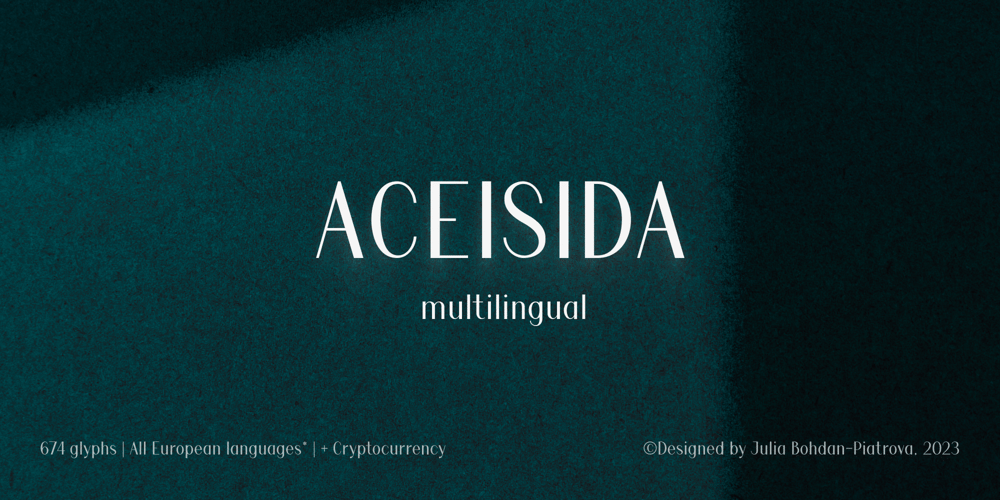
Aceisida
Aceisida font
Aceisida Font Family was designed by Yuliya Bohdan-Piatrova and published by JB Design. Aceisida contains 4 styles and family package options. ACEISIDA is a font that supports over 100 languages from around the world. Basic and some Extended Cyrillic, Basic, Additional and Extended Latin, Basic Greek, and some newly added characters recently entered into use in everyday life. ACEISIDA is a font that elegantly combines the timelessness of antique design with the modernity of the grotesque. The absence of serifs results in a universally readable and sophisticated format. It was designed to focus on the main text, complementing other design fonts without disrupting them. This font is perfect for those who appreciate minimalism and refinement, and its smooth lines make it suitable for various design projects. It adds understated elegance to any design, making it the ideal choice for those who value simplicity, modernity, and sophistication. The font includes many glyphs for the Kazakh language, catering to the ongoing transition to the Latin script and accommodating various spellings.It also features a basic set of characters and glyphs with accents for the Greek language and an uppercase version of the letter “eszett” for German.